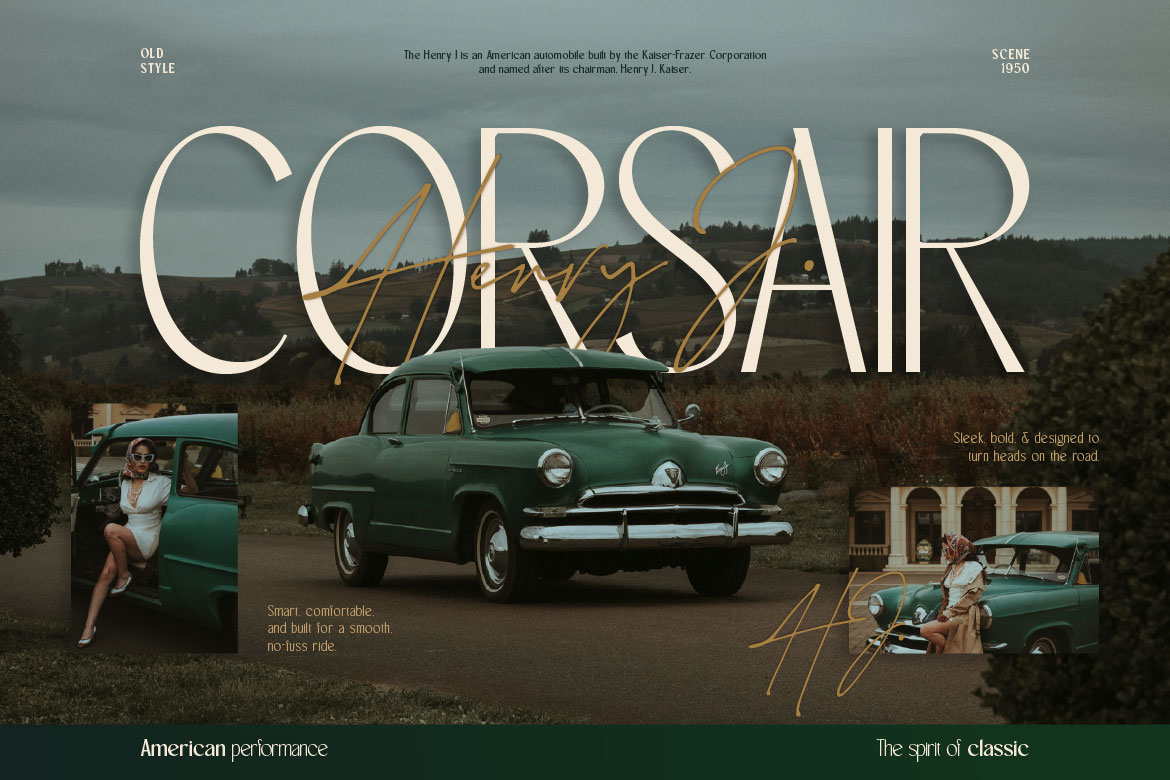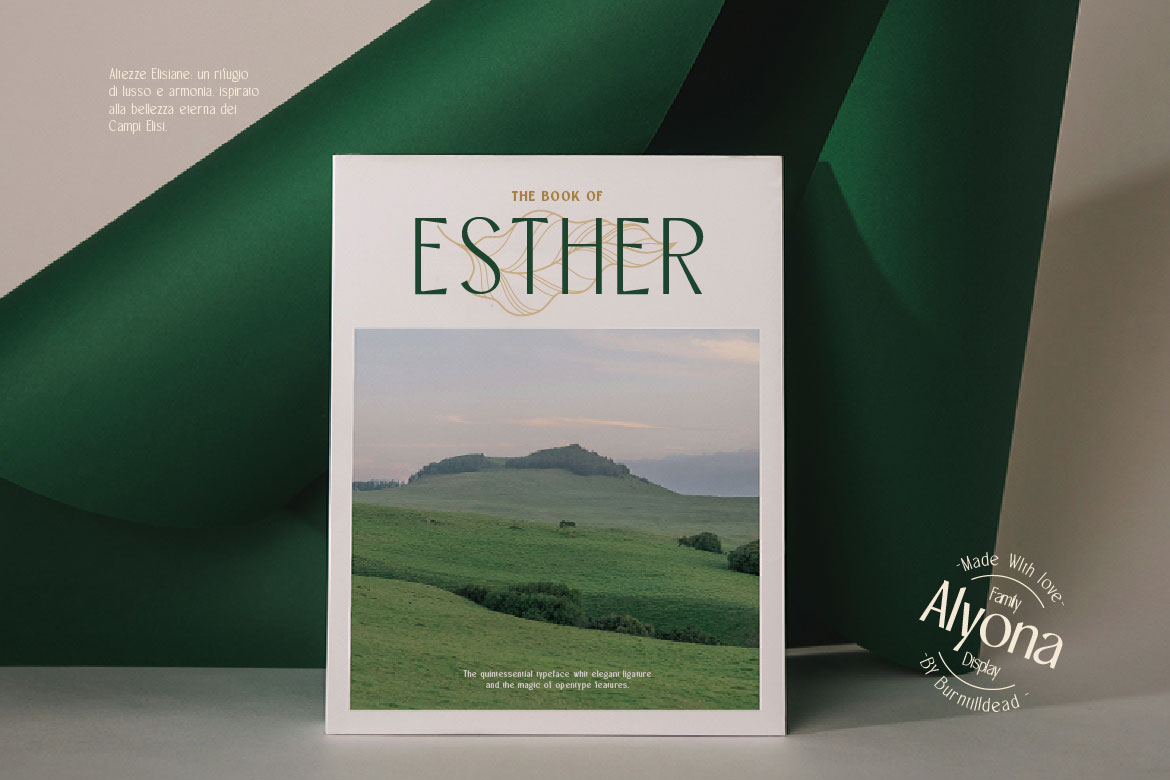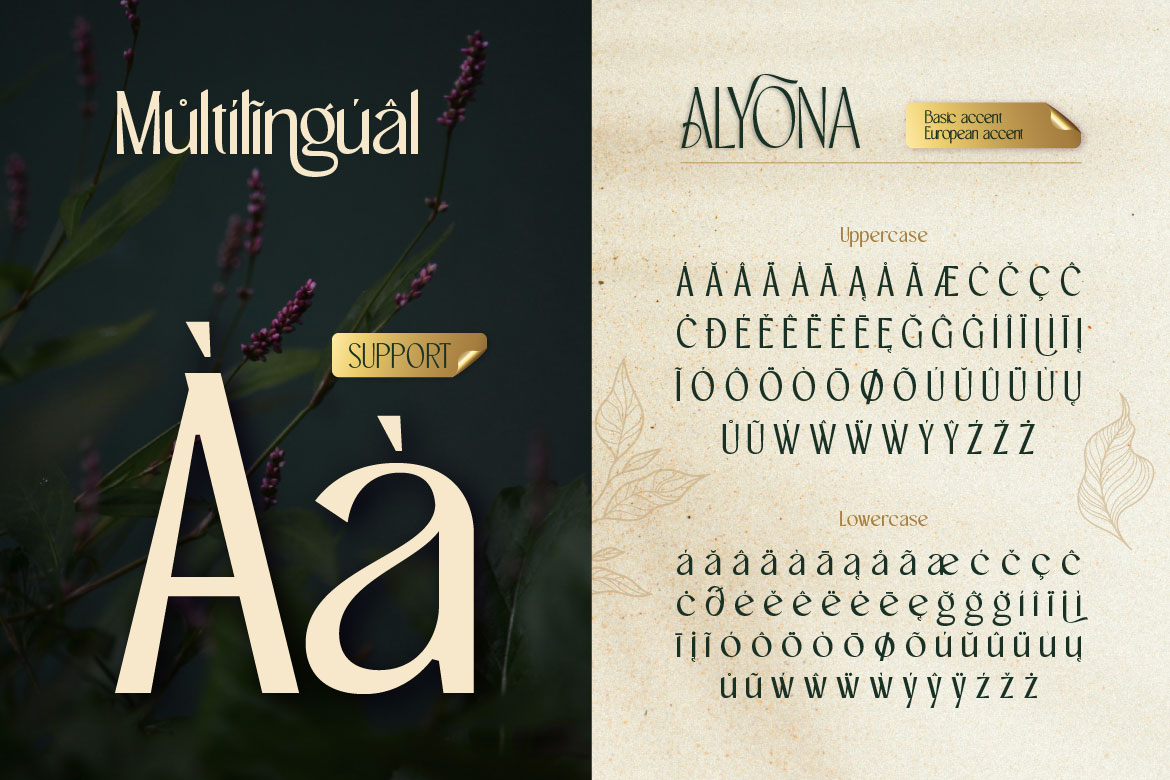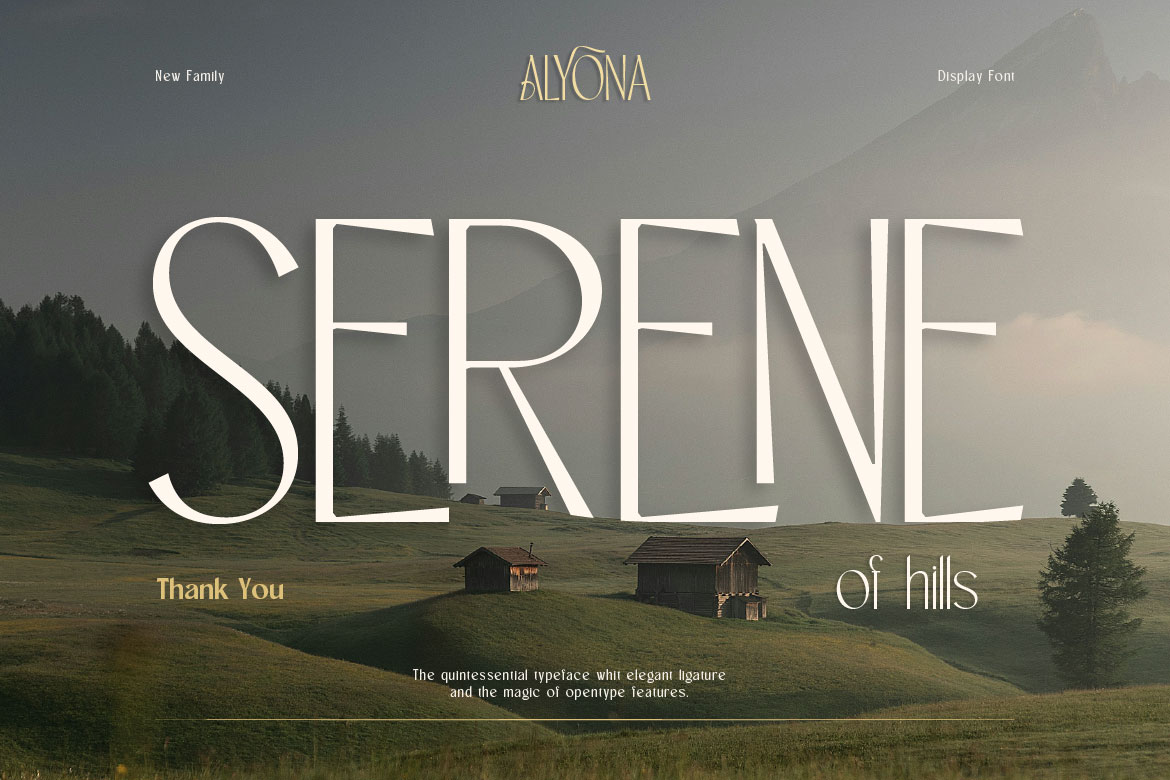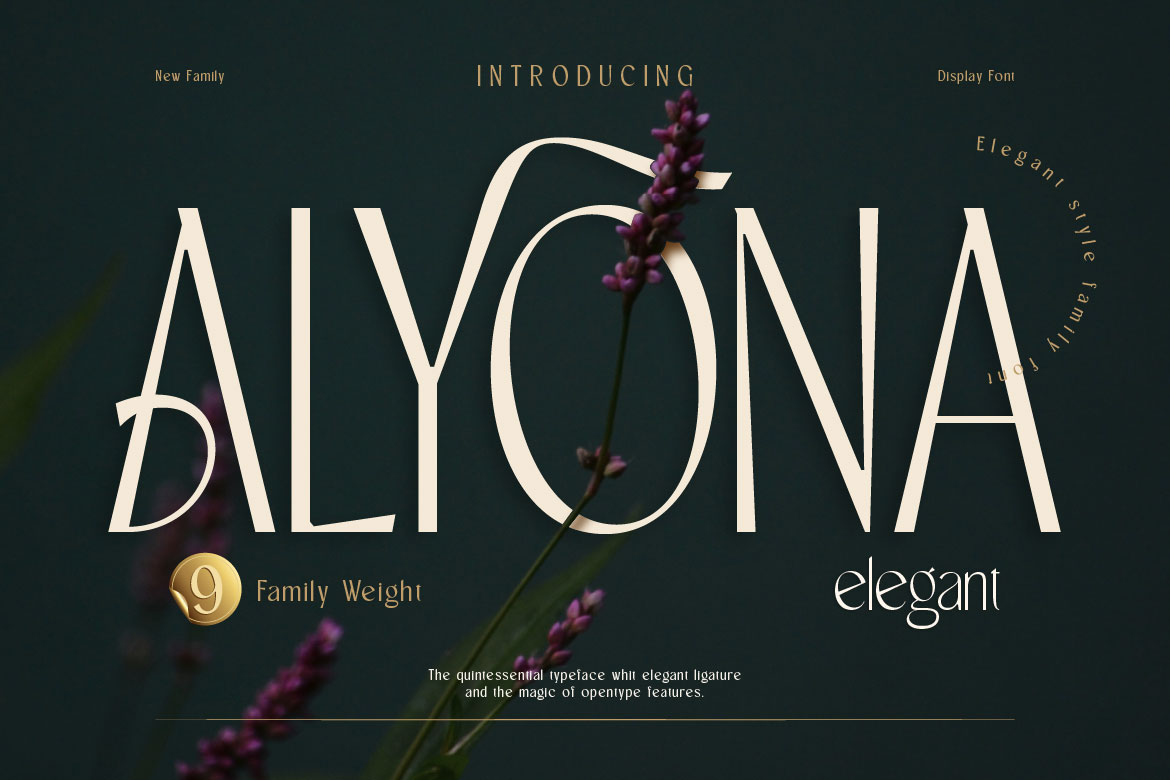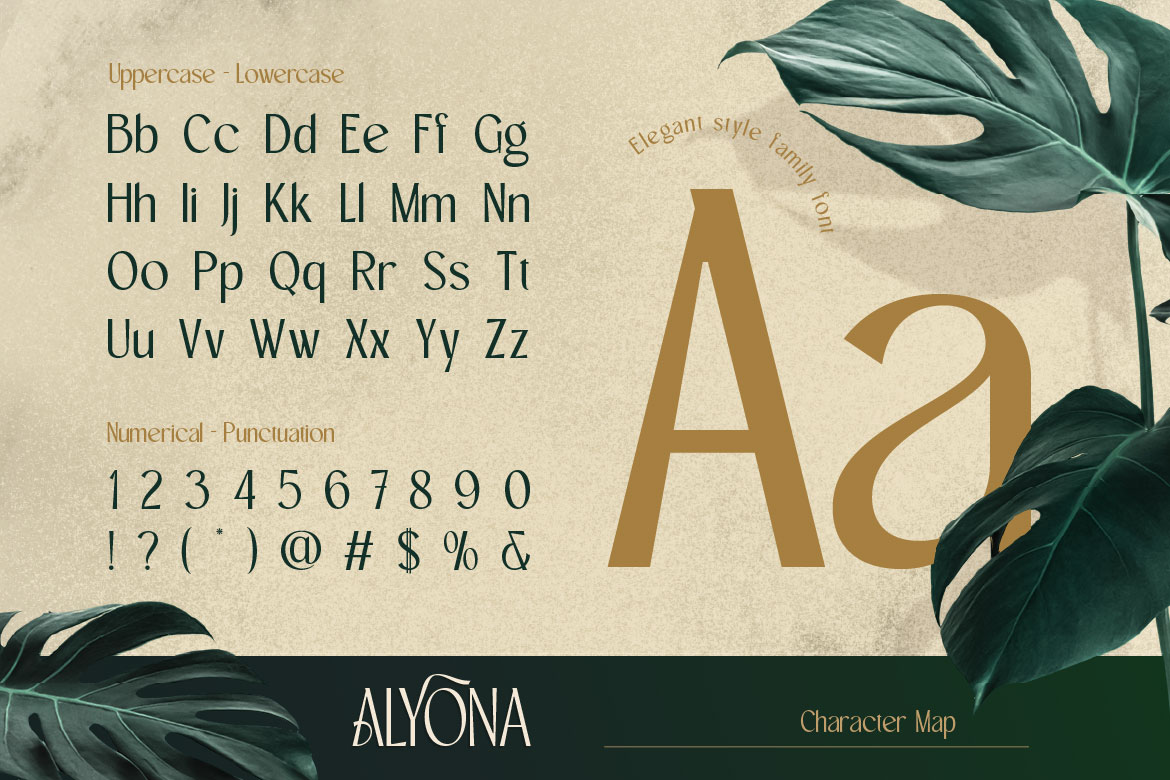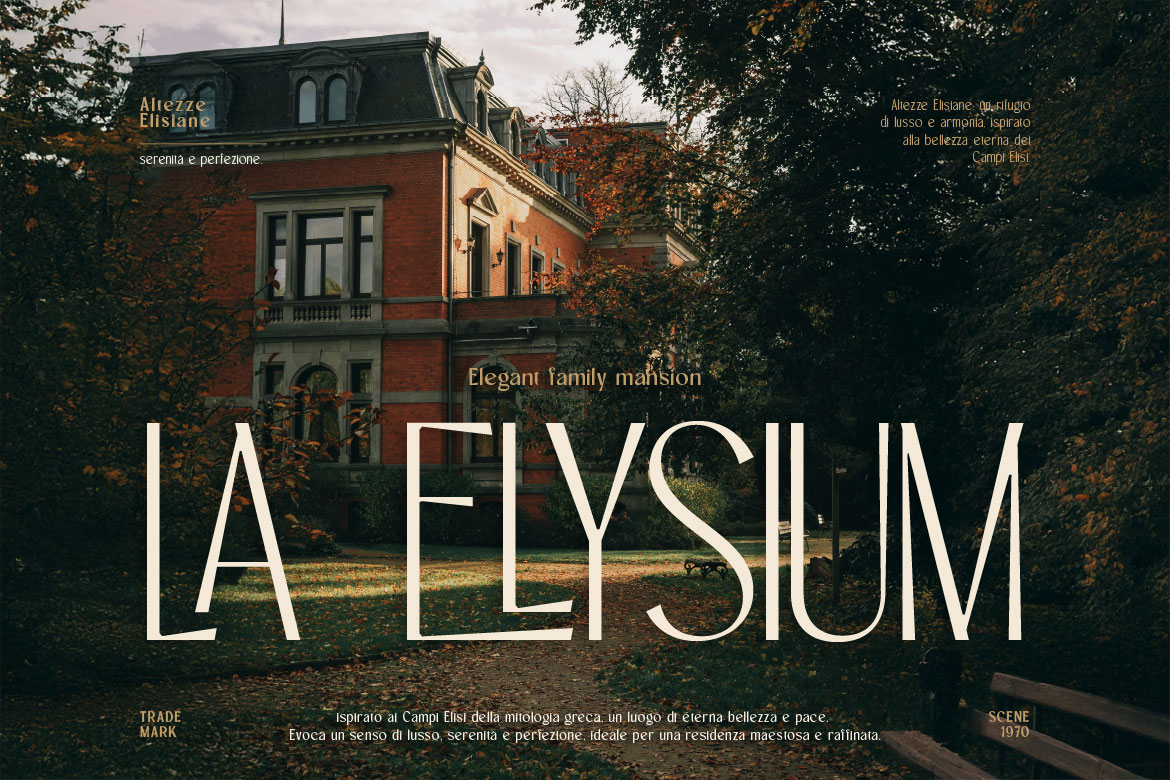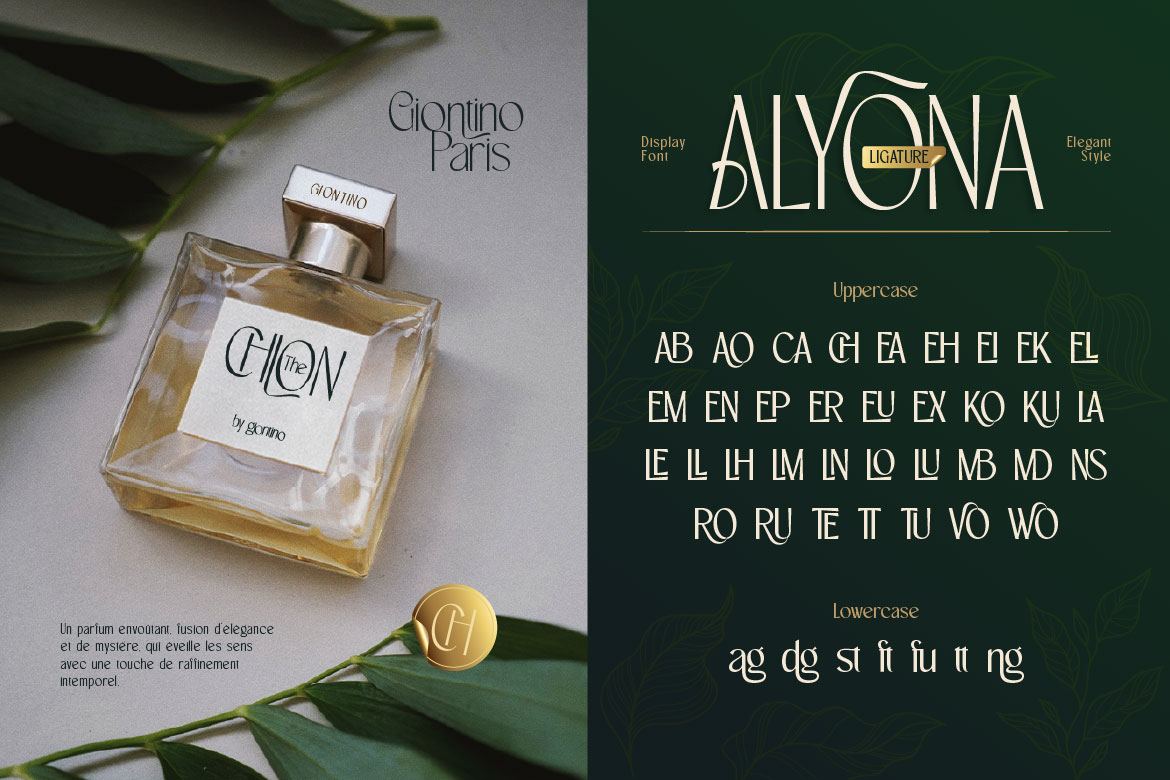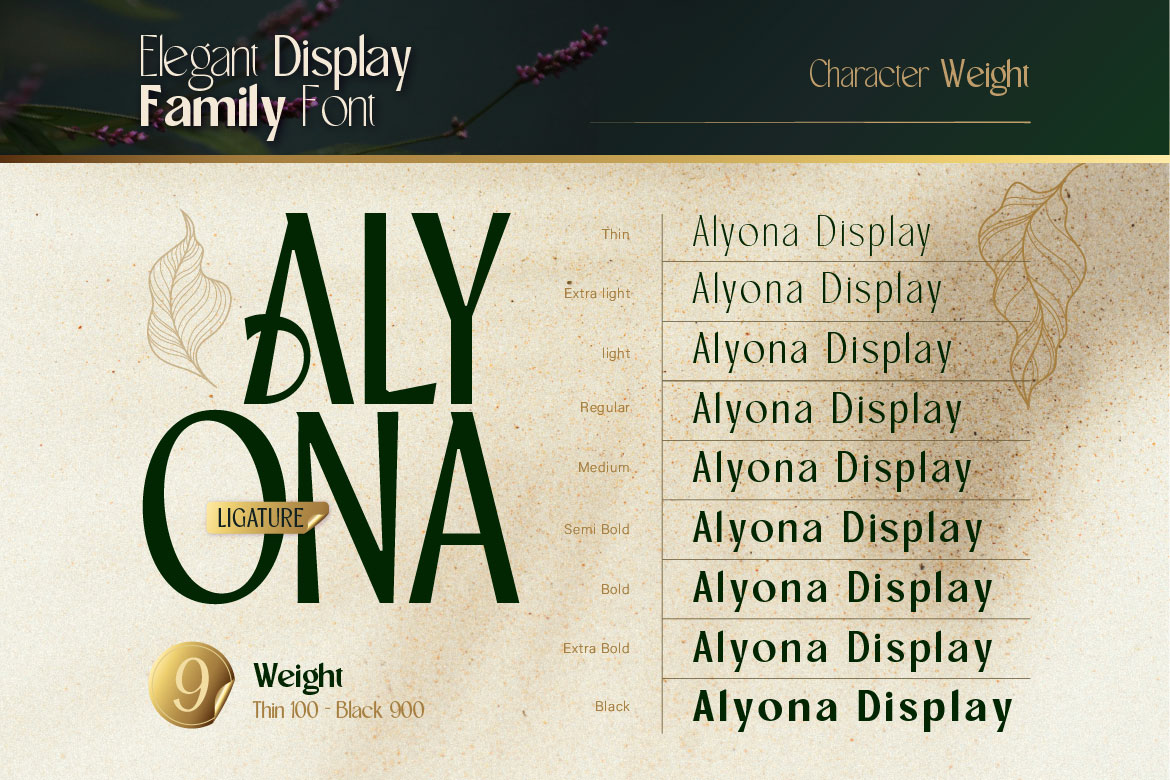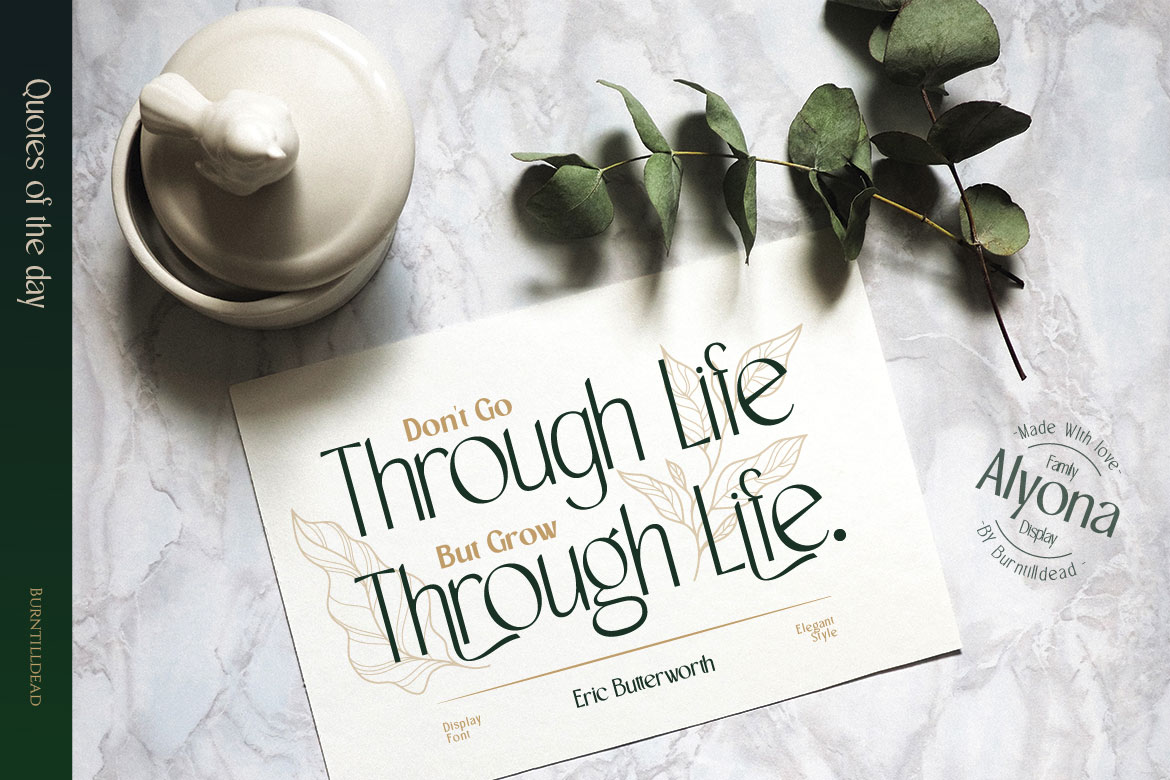
Alyona
byBurn Till Dead Studio
Aloyna is an elegant  style family font designed to bring a luxurious and classy touch to any project. With 9 weights ranging from thin to black, this font offers incredible flexibility for various design needs – whether it’s branding, editorial work, packaging, or sophisticated invitations.
A perfect blend of sharp lines and smooth curves gives Aloyna a modern, minimalist and professional look while maintaining its elegant essence. The ligatures and alternates add an artistic variety for a more exclusive and refined appearance.
• A – Z set (Uppercase & Lowercase)
• Number
• Punctuation
• Alternate
• Ligature
• Multilingual
• Aloyna Characters Map